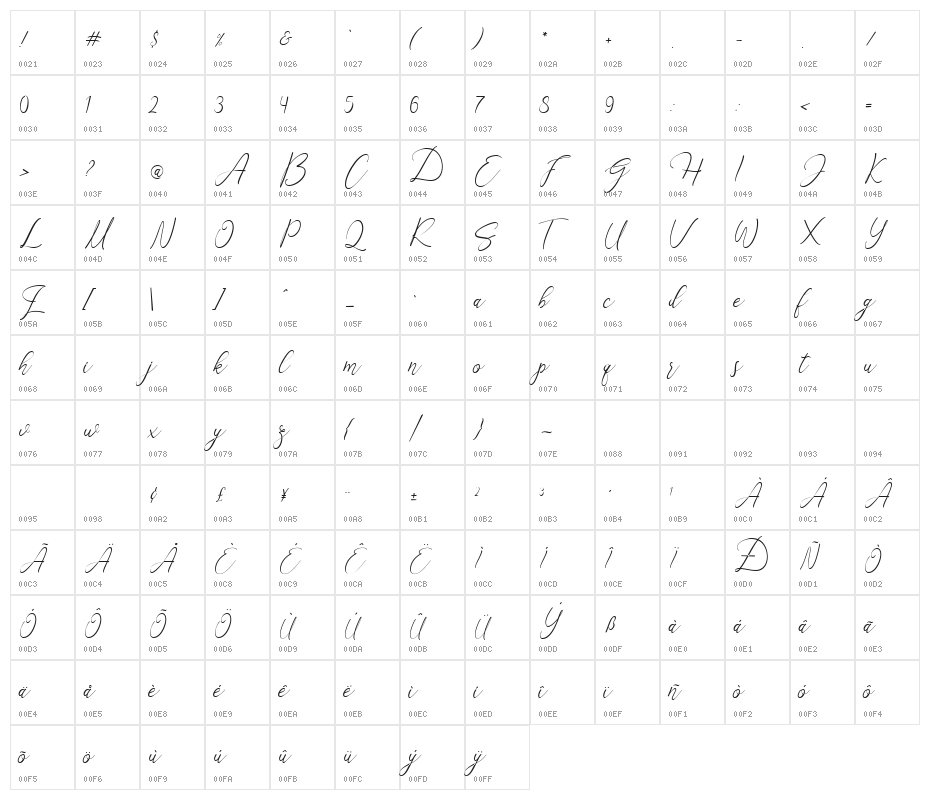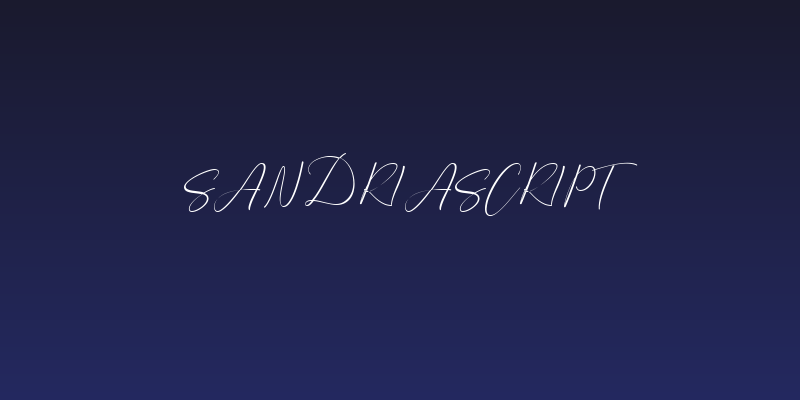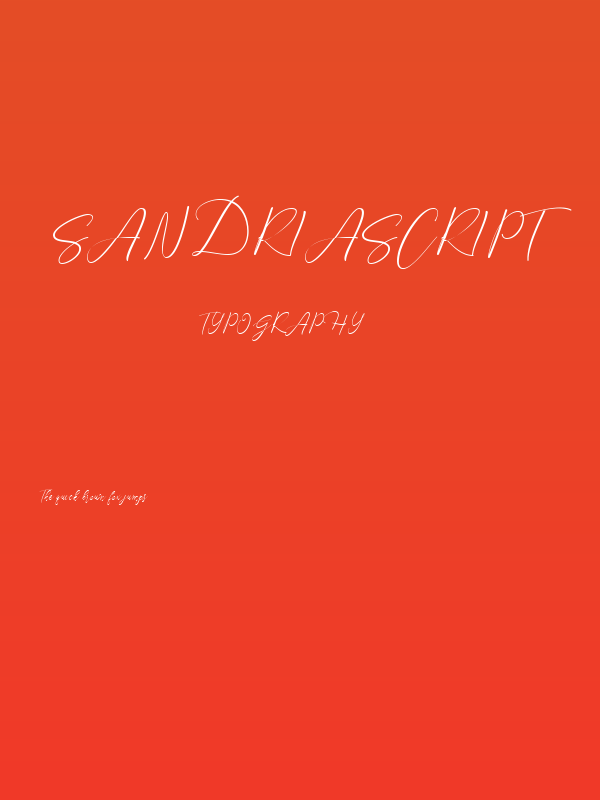
SandriaScript Font
SandriaScript Description
This elegant script font features fluid, graceful strokes that mimic the natural flow of handwriting. The characters are connected with sweeping curves and loops, giving it a sophisticated and artistic appearance. The uppercase letters are tall and slender, while the lowercase letters maintain a consistent baseline with slightly exaggerated ascenders and descenders. The numerals and special characters are crafted with the same attention to detail, ensuring a cohesive look across all text. This font exudes a sense of elegance and refinement, making it ideal for formal invitations, branding, and decorative purposes.
| Overall Style | Elegant, Artistic |
| Use Case | Headlines, Invitations, Branding |
| Proposed Projects | Ideal for wedding invitations, luxury branding, greeting cards, and decorative signage. |